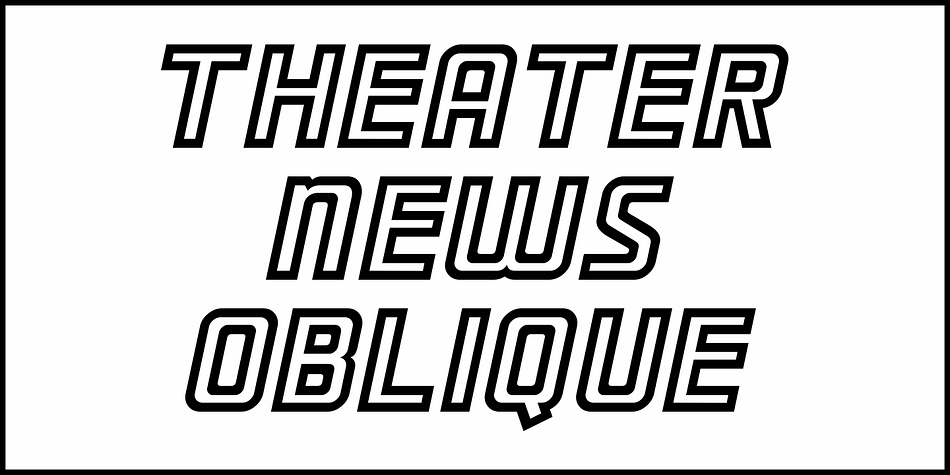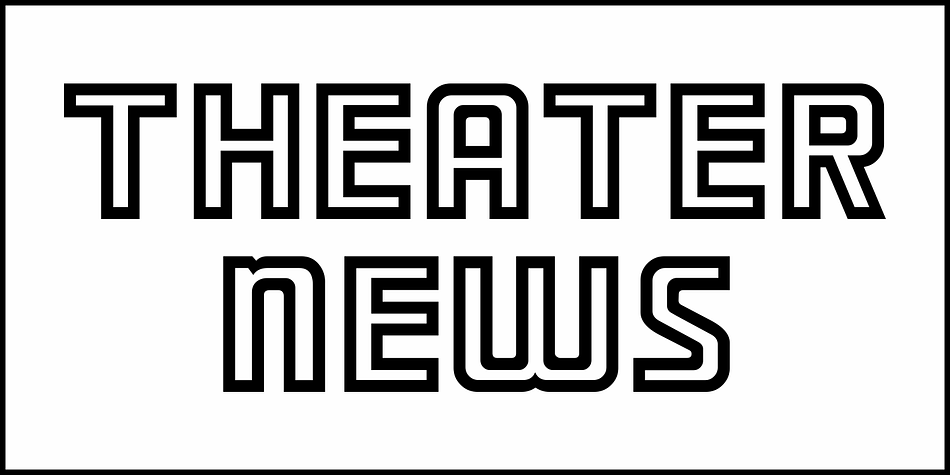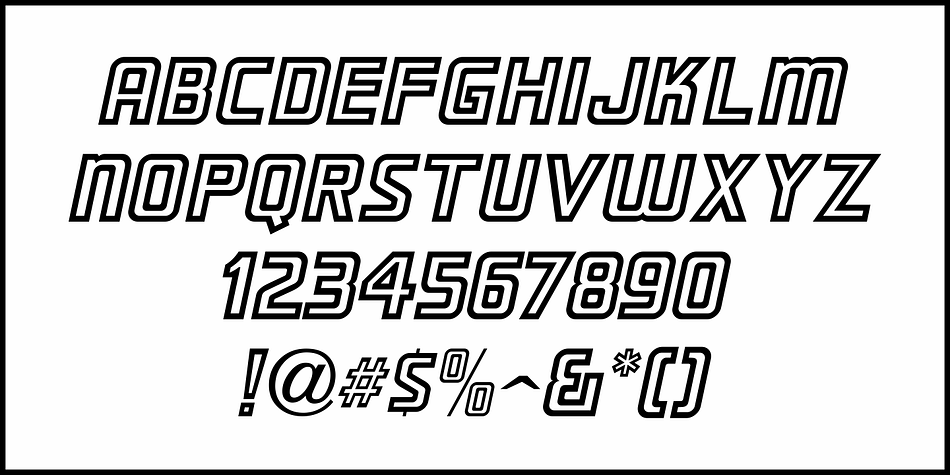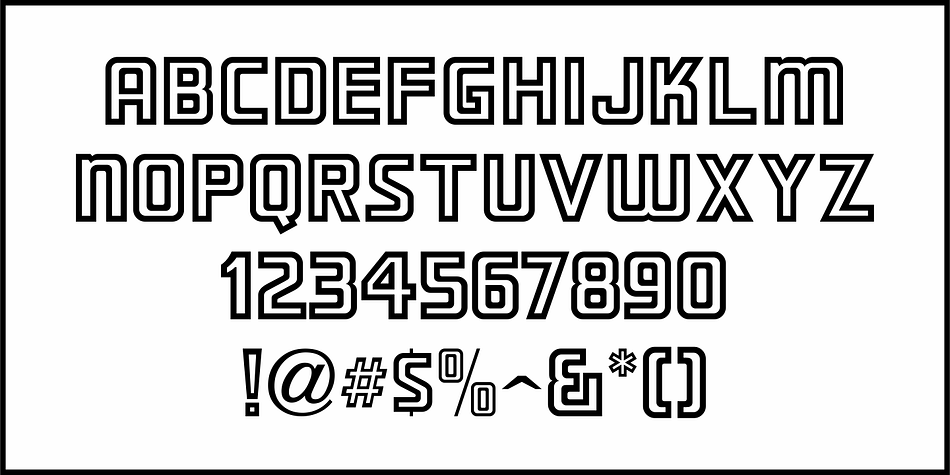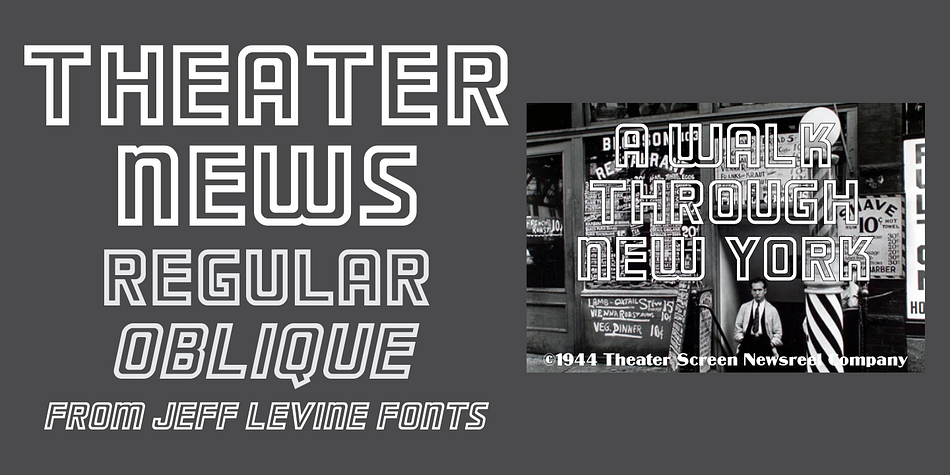
THEATER NEWS JNL
Designed by Jeff Levine, Theater News JNL is a display font family. This typeface has two styles and was published by Jeff Levine Fonts.
During the height of Beatlemania in 1964, British Pathé filmed a series of theatrical newsreels of the Fab Four in New York, England, Australia and other locales.
Many of the subject titles were hand lettered in a bold outline type style that was squarish in shape with rounded corners and reminiscent of Art Deco lettering.
This is now available as Theater News JNL in both regular and oblique versions.